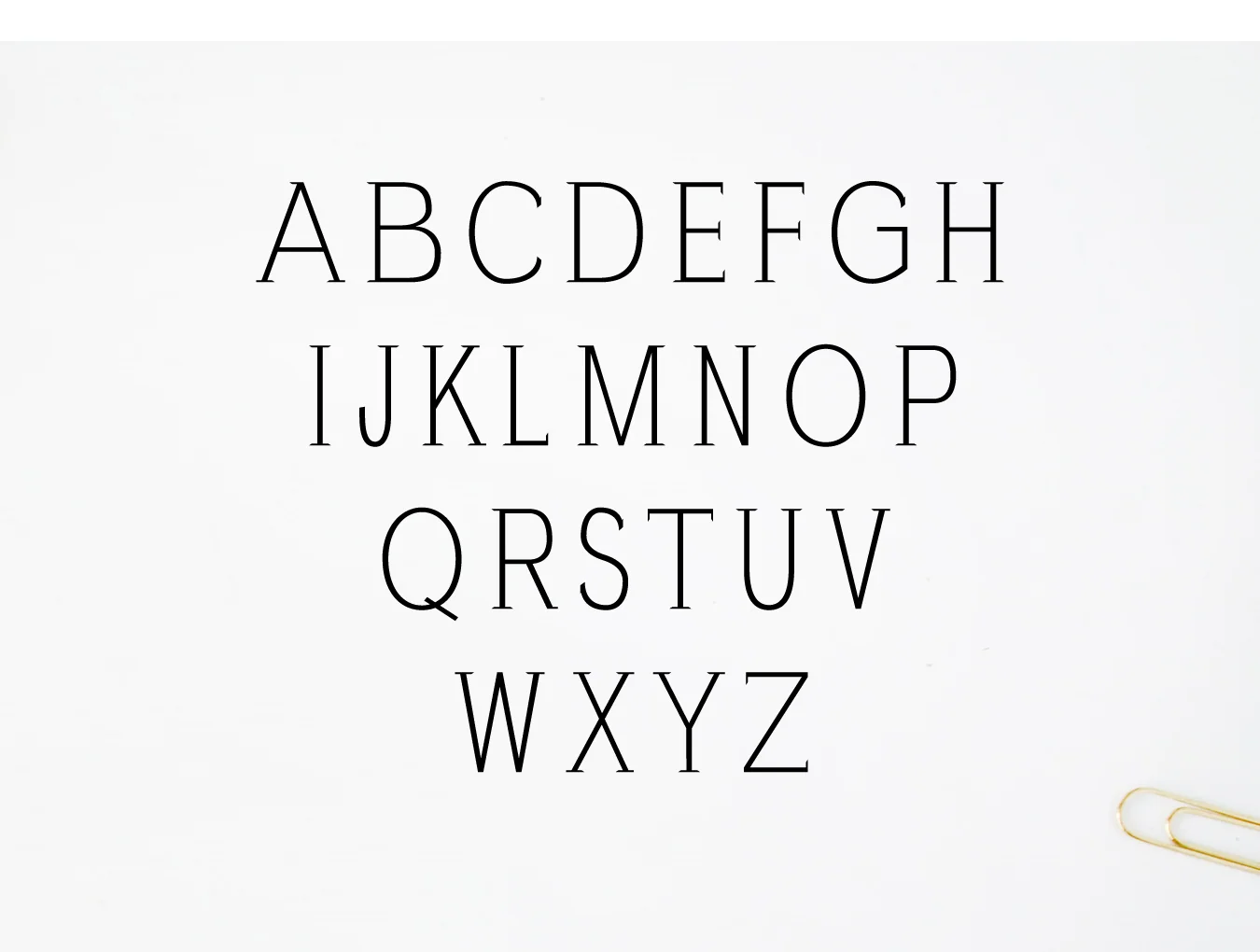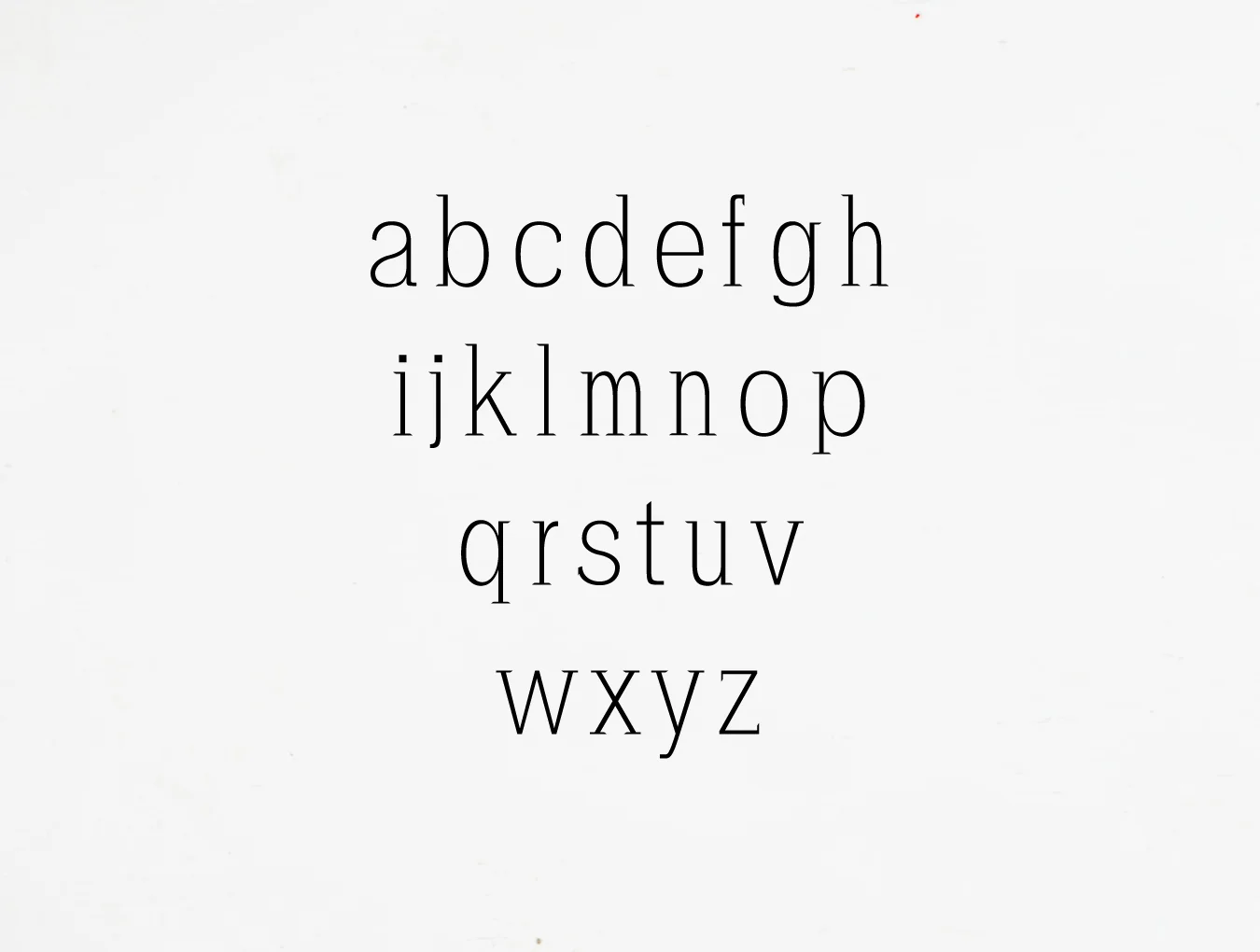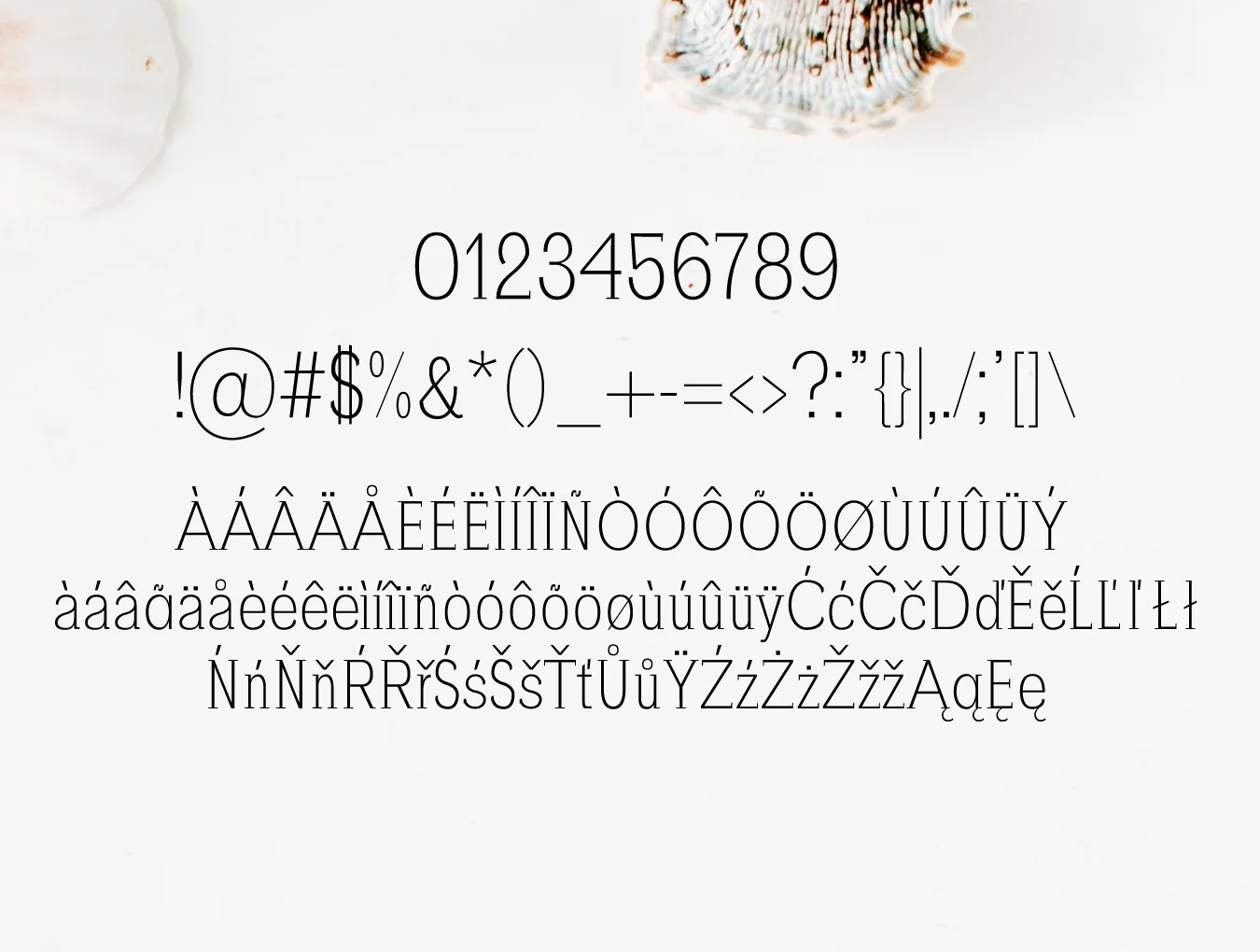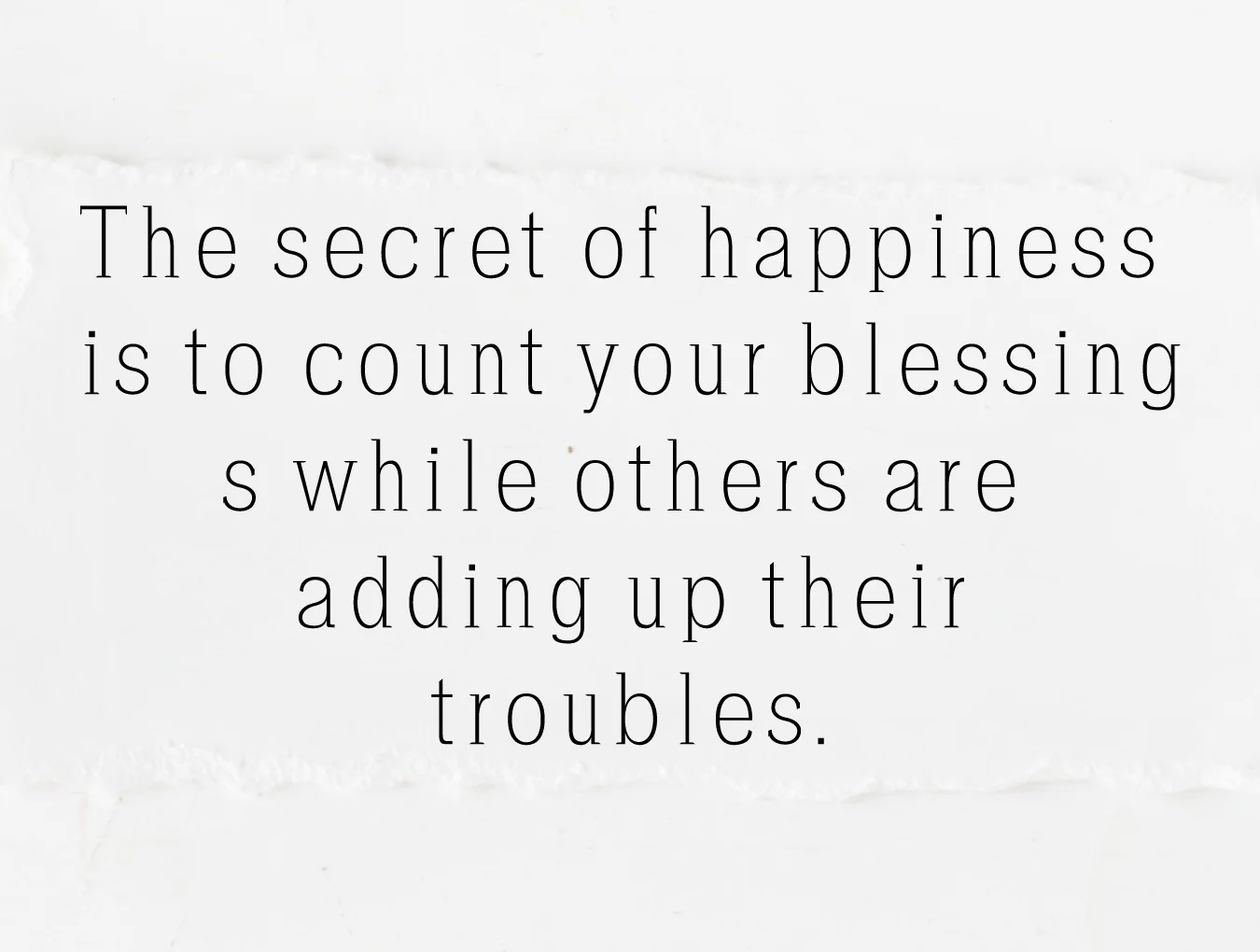
Zayley Serif Regular
Zayley Serif Regular typeface only
Serif typeface style
294 included glyph characters
Standard regular font weight
Zayley Serif Regular Font offers a distinctive contemporary serif style. Ideal for elegant logos, headlines, website designs, and branding, it shines in widely spaced all-caps for a refined feel or in mixed uppercase and lowercase for a timeless appearance.